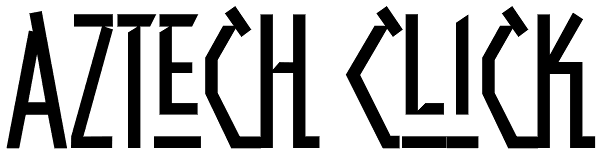
Aztech
Was God an Ancient Astronaut? Are crop circles signposts for UFOs? Are we or are we not alone? Do you Want To Believe? We have No Idea. Nevertheless, we've put together a rather attractive little typeface -- by the name of Aztech -- which will...
Aztech Click
Aztech Clunk